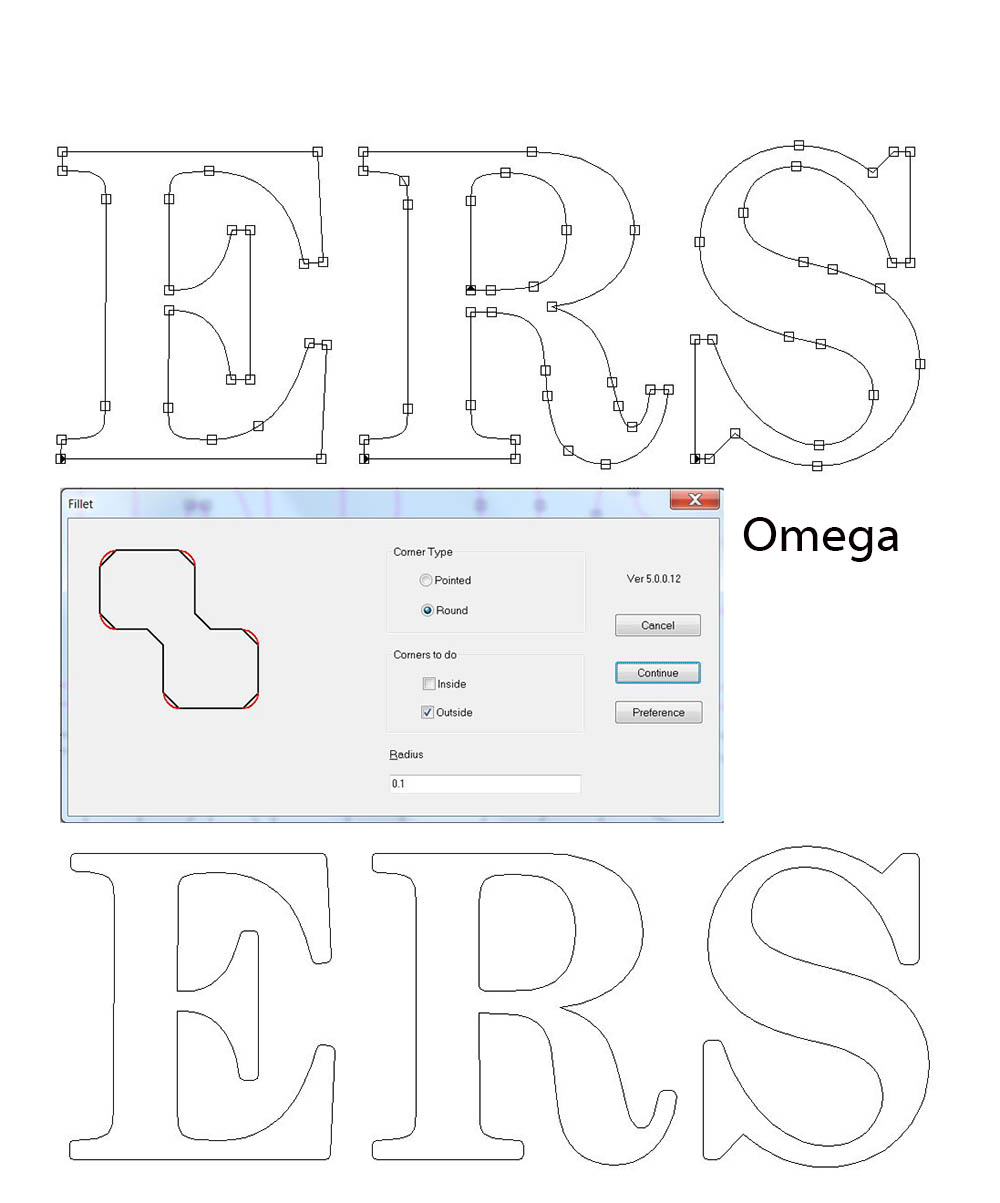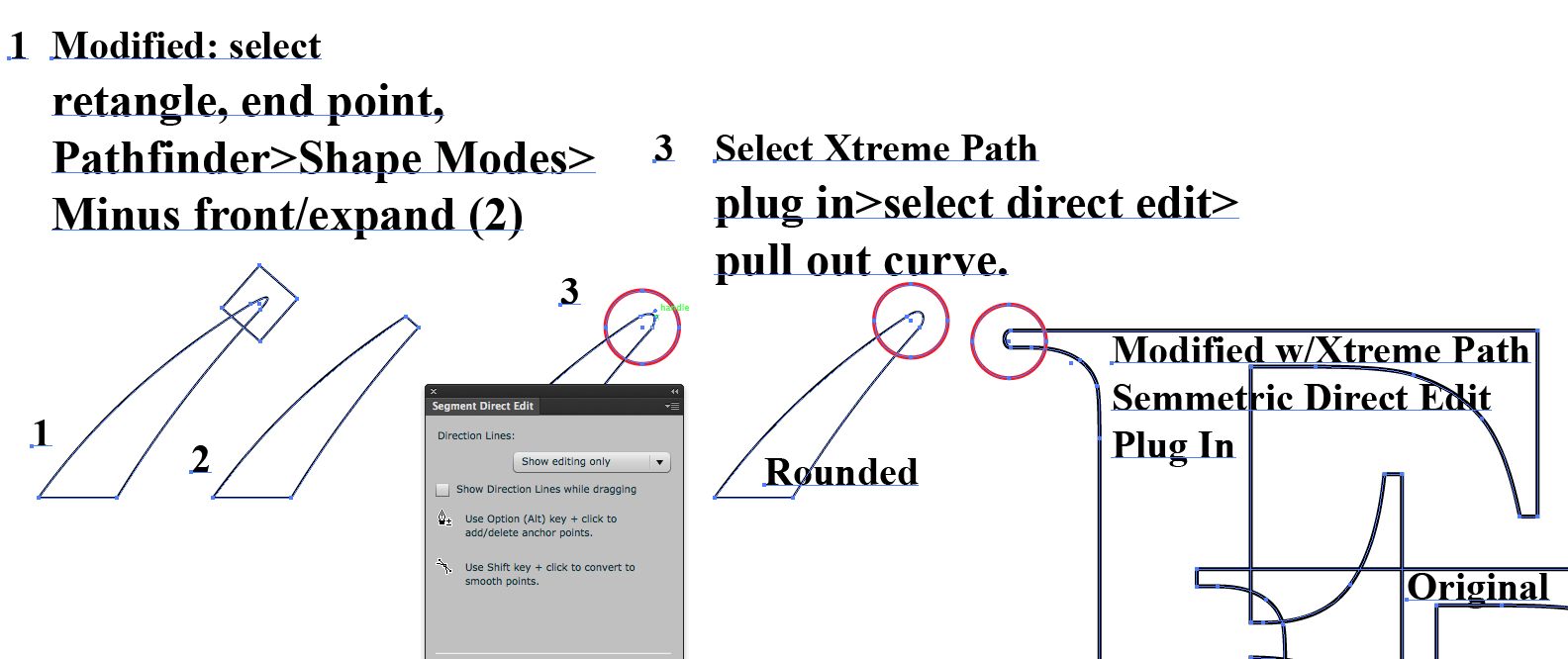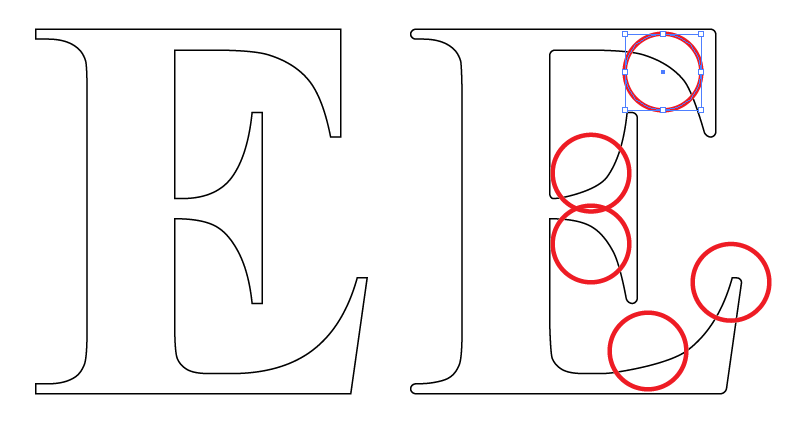
Sorry if I'm off the topic of hand lettering somewhat here but I know of no better place to post and get a good answer to this. I did subscribe to Linda.com but have closed off for the summer and now find myself in need of advice.
If I have drawn a letter with the sharp points the illustrator leaves you with at the ends of serifs and square corners, is there a command to use to round these points off with? I don't want a stroke and fattening of the letter as the weights are already correct. Have heard that it's quite simple in Omega software but as don't have any 'pooters in the shop it's not a software that I'll need or want.
I would normally tell you to call Danny Baronian's 24 hr Illustrator hot line but I'll try and tell you my self. In the pen pallet there is the Convert anchor point tool. it looks like a v on it's side. If you click that tool on you square anchor point and then draw it out the handles will come out then you can adjust them.
Hi Rod....use that convert anchor point all the time but theres another way that is far more accurate somewhere in there.
Rod's right, but there's another way of using the convert anchor point. While drawing using the pen tool (P), if you make a mistake and need to adjust a vector handle, or change the direction, press the alt key with a mouse down, and you get the convert anchor point that displays as a v in place of the cursor. Move it around to move any vectors without affecting the last drawn vector.
But... after re reading this before posting, I think Doug's asking about how vectors are shaped at the beginning and end. If that's the case, select the pen tool, or the vector drawn, go to menu item 'window' and select stroke, which opens the stroke tab. Select the arrow in upper right section, select 'options', and the tab will expand, allowing you to choose start and termination vectors with either round or square caps, corners or strokes.
Note - if you plan of using strokes with rounded end caps other than print or display, you will need to expand the stroke to display properly.
I don't have AI loaded anymore and mainly use Corel but this is what I do.
Insert your text, convert to curves. Then you can pick the whole image or just nodes (anchor points) you need to change such as serifs, click on the fillet flyout and pick the radius you need. There should be something in AI that works the same.
I use this all the time with my cutter so it doesn't lift the corners, it just rounds them a little.
Thanx....can see some time spent experimenting with that one might prove worth while
Terry, to my knowledge, AI doesn't have a fillet tool, despite the fact that users have requested the feature for years.
Short of that, I have found Xtreme path to be a great plug in, that more than makes up for Adobe's deaf ear.
On the last screen shot is a plug in I use, and how it's done. In practice, it can be done quickly, but each needs to be done separately. The plug in is called Xtreme Path.
Xtreme Path also has a fillet tool that can either be used unconstrained, or with user input data, which would make the objects / serifs look as Mike illustrated in Omega. Problem is, each corner has to be treated separately.